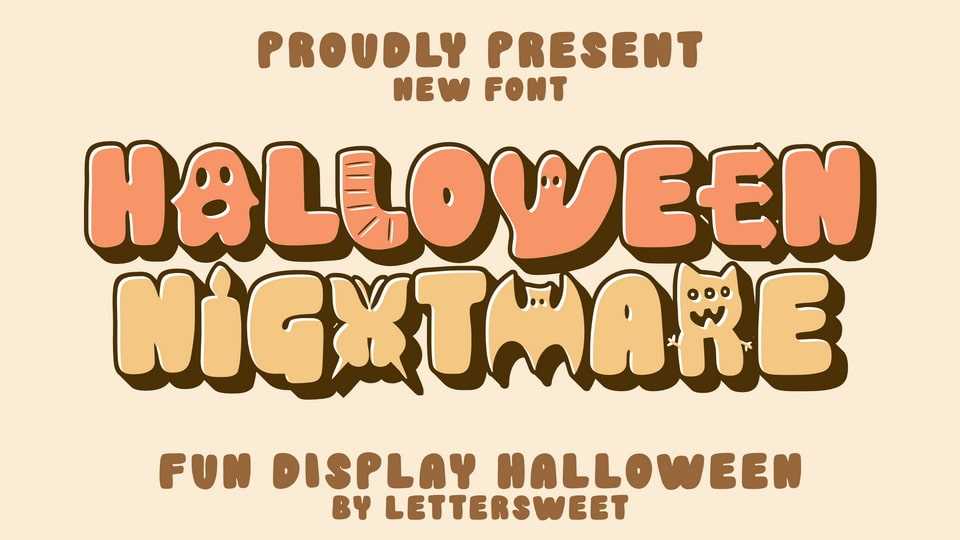
Download Halloween Nightmare font, a bold and spooky decorative typeface with cute letters. Add it to your Halloween crafts, horror movie posters, t-shirts, and anything else that requires a spectacular look.